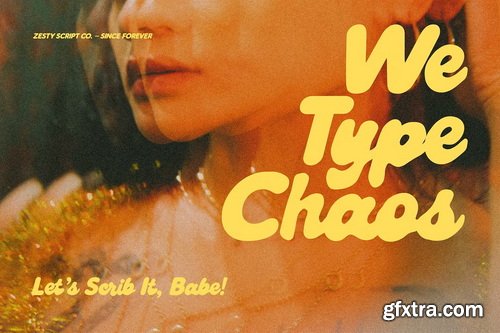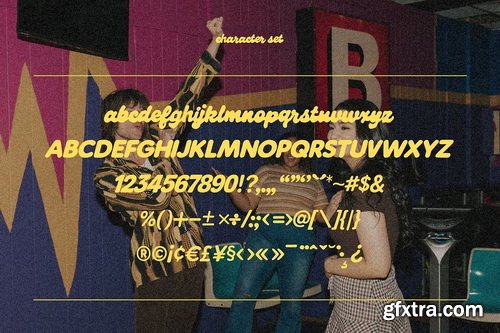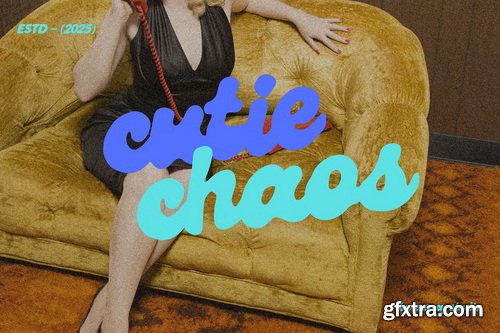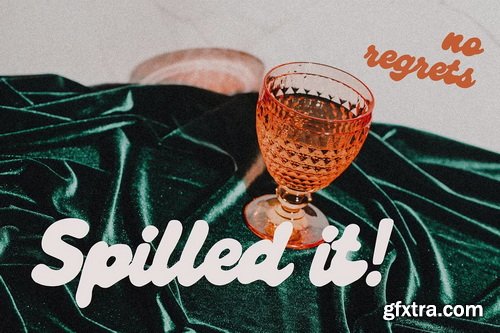
CreativeMarket - Zesty Scribs A Playful Script Font
- Say hello to Zesty Scribs, a bold & bubbly script font bursting with attitude. Whether you’re crafting bold headlines, cheeky quotes, or retro-inspired branding, Zesty Scribs brings the flavor — playful, zippy, and oh-so-fun.
- With smooth curves, punchy strokes, and a hand-lettered charm, this typeface is your go-to for that quirky-but-polished look. It’s giving sass, it’s giving class, and it totally slays on everything from packaging to party invites.